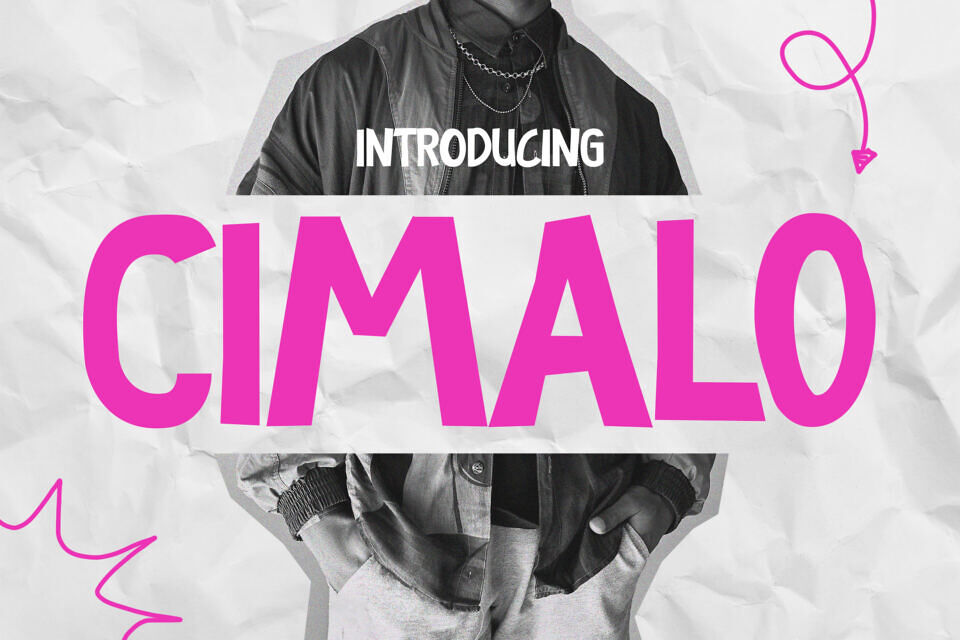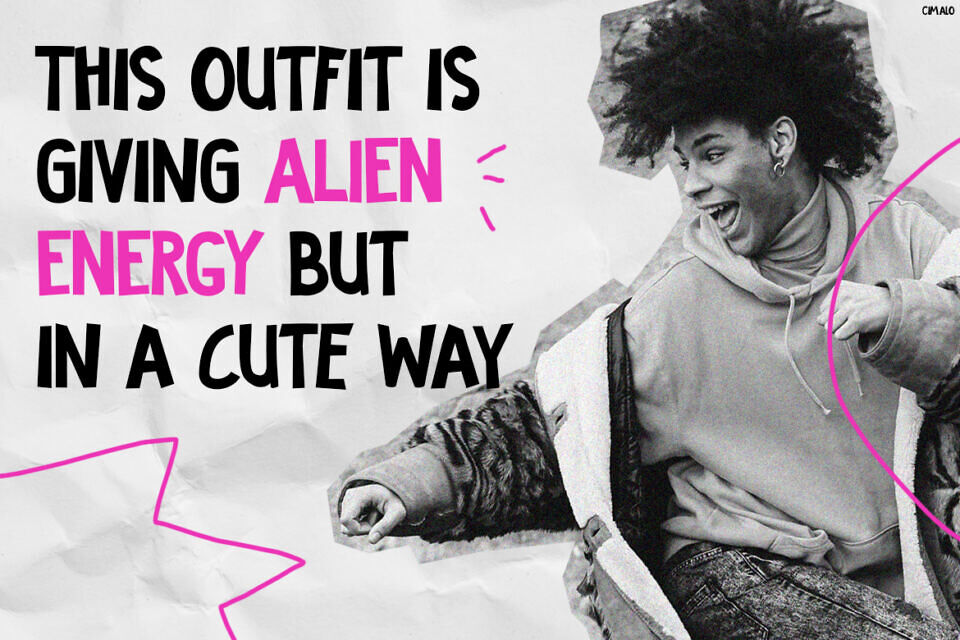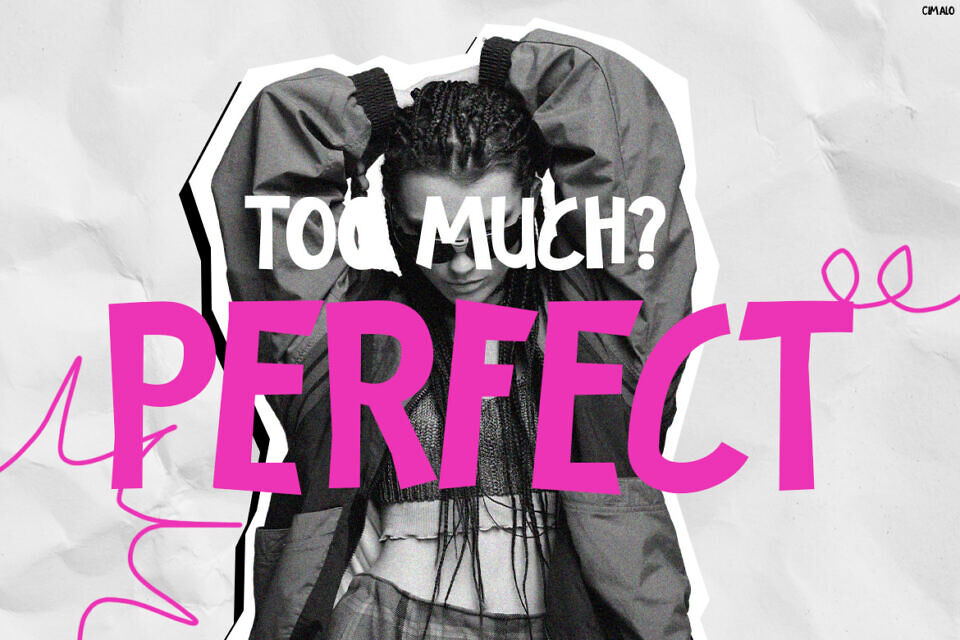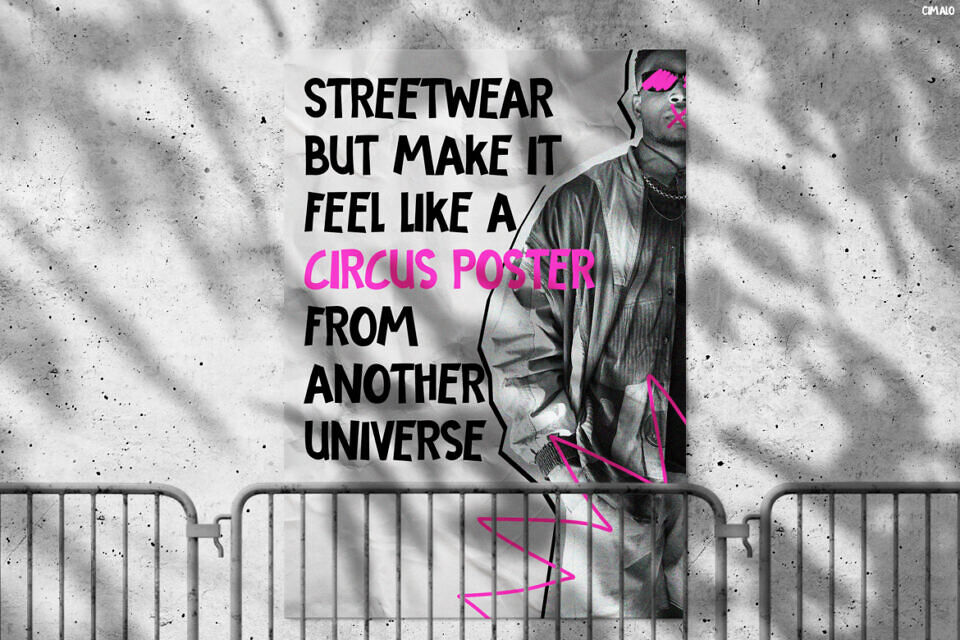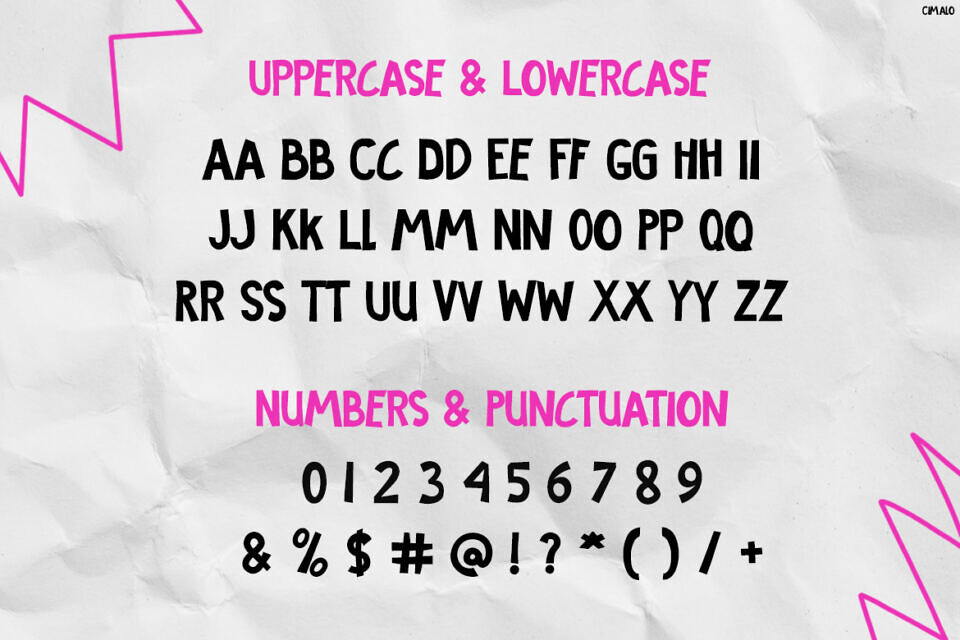
CIMALO is a striking, edgy typeface that blends bold street aesthetics with expressive personality. Moreover, its raw, urban-inspired shapes and high-contrast strokes instantly create a rebellious yet stylish vibe. In addition, the mix of clean uppercase, playful lowercase, and expressive punctuation makes it highly versatile for modern layouts.
Not only does it feel bold, but it also communicates energy and attitude in every letter. As a result, this font stands out by capturing emotion—loud, confident, and unapologetically modern—while still remaining readable and functional across both digital and print media.